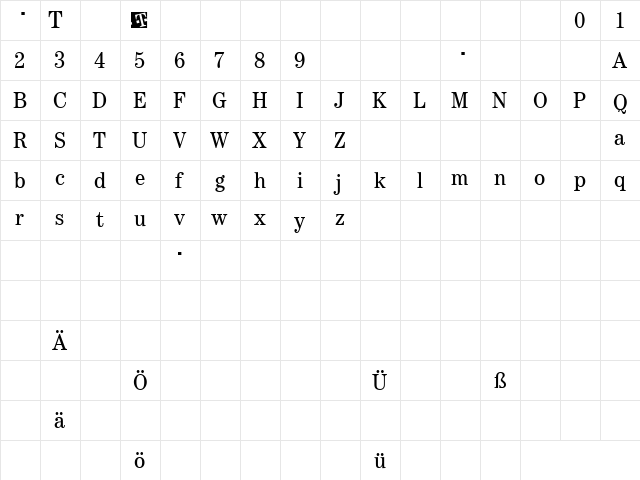
TeleLogo Regular
Design Context for TeleLogo Typeface
TeleLogo is a composed and adaptable typeface that performs quietly and consistently across a wide range of design contexts.